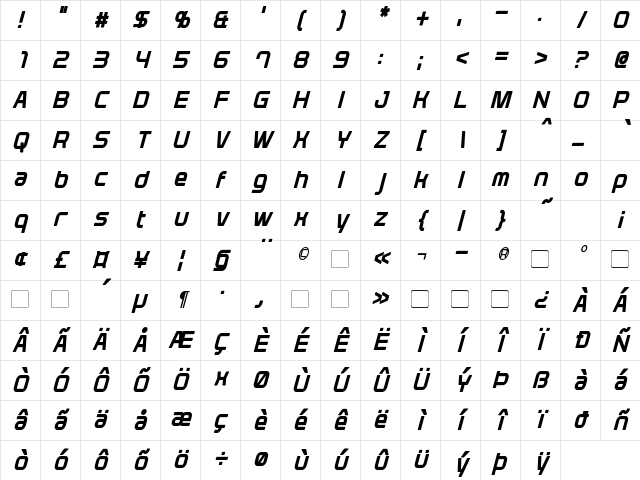
Complete Plavsky Condensed Bold Italic glyph index. Displaying only characters natively supported by Plavsky Condensed Bold Italic font.
Plavsky Condensed is a composed and adaptable typeface that performs quietly and consistently across a wide range of design contexts. The slanted form adds forward momentum and visual energy. Its bold stroke weight gives it real presence on the page. Its narrow stance lets it pack a punch even in space-constrained designs.